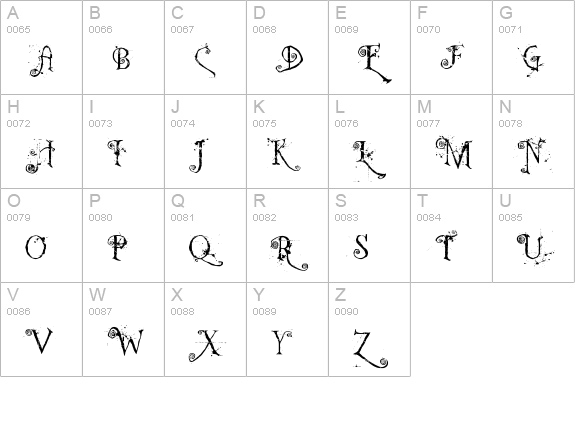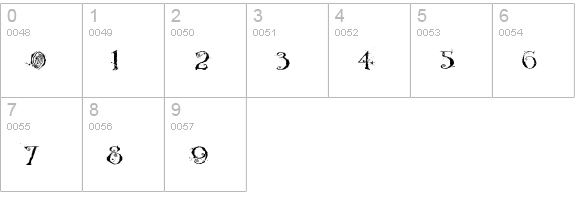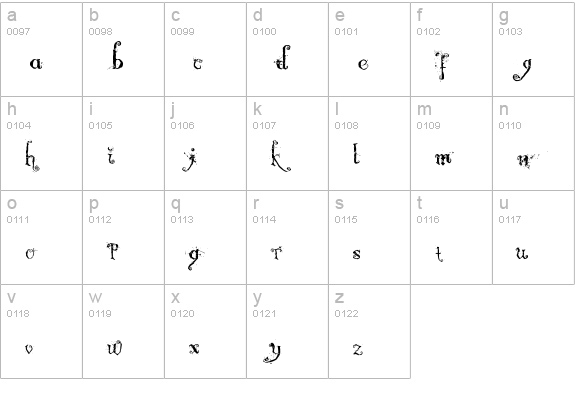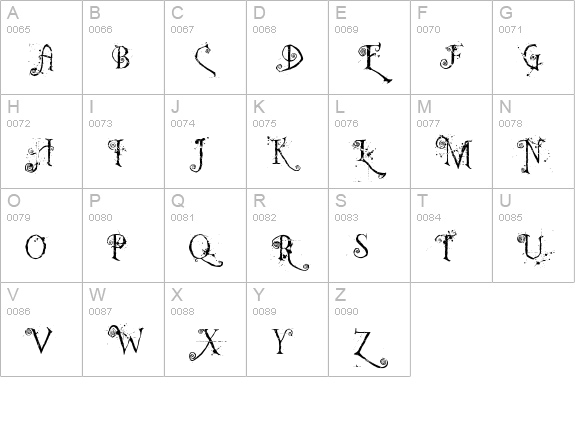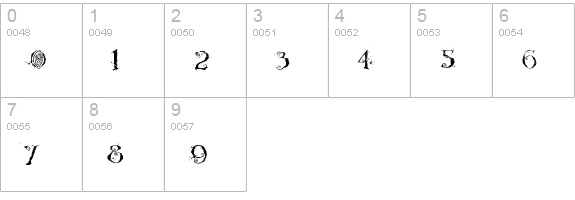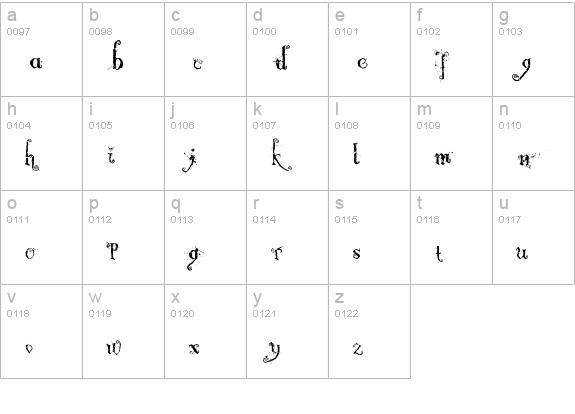
Nemo Nightmares Font Details
Nemo Nightmares font is a hauntingly beautiful typeface that combines elegance with a touch of darkness. Its intricate details and unique design make it perfect for adding a mysterious and gothic vibe to your projects. The sharp serifs and bold strokes give this font a sense of strength and character, while the delicate curves add a touch of sophistication. Whether you're working on a spooky Halloween invitation, a gothic-inspired logo, or a mysterious poster, Nemo Nightmares font is sure to make a statement. Its versatility allows it to be used in a variety of design projects, from branding to editorial. The best part? Nemo Nightmares font is completely free to download at FontsMarket.com. So go ahead and unleash your creativity with this captivating and striking typeface. Let Nemo Nightmares font bring your designs to life with its haunting beauty and unique style.